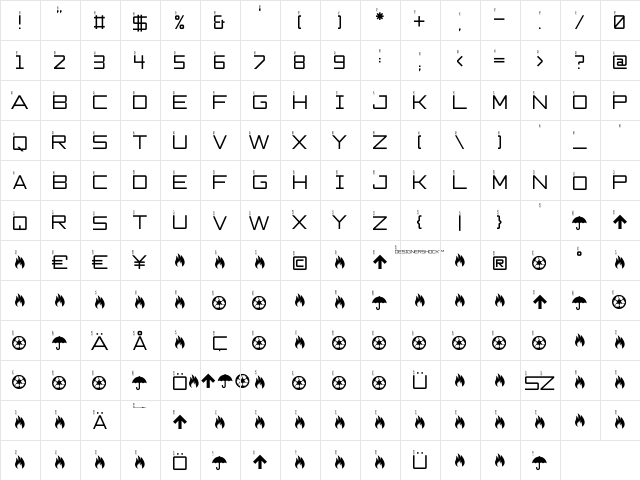
DS GS45 Regular
Design Context for DS GS45 Typeface
DS GS45 offers clean, dependable letterforms without strong stylistic allegiance, making it a practical choice for designers who need flexibility.
Pro Tip: Pair DS GS45 with a font of contrasting weight or personality to build a more expressive typographic hierarchy.